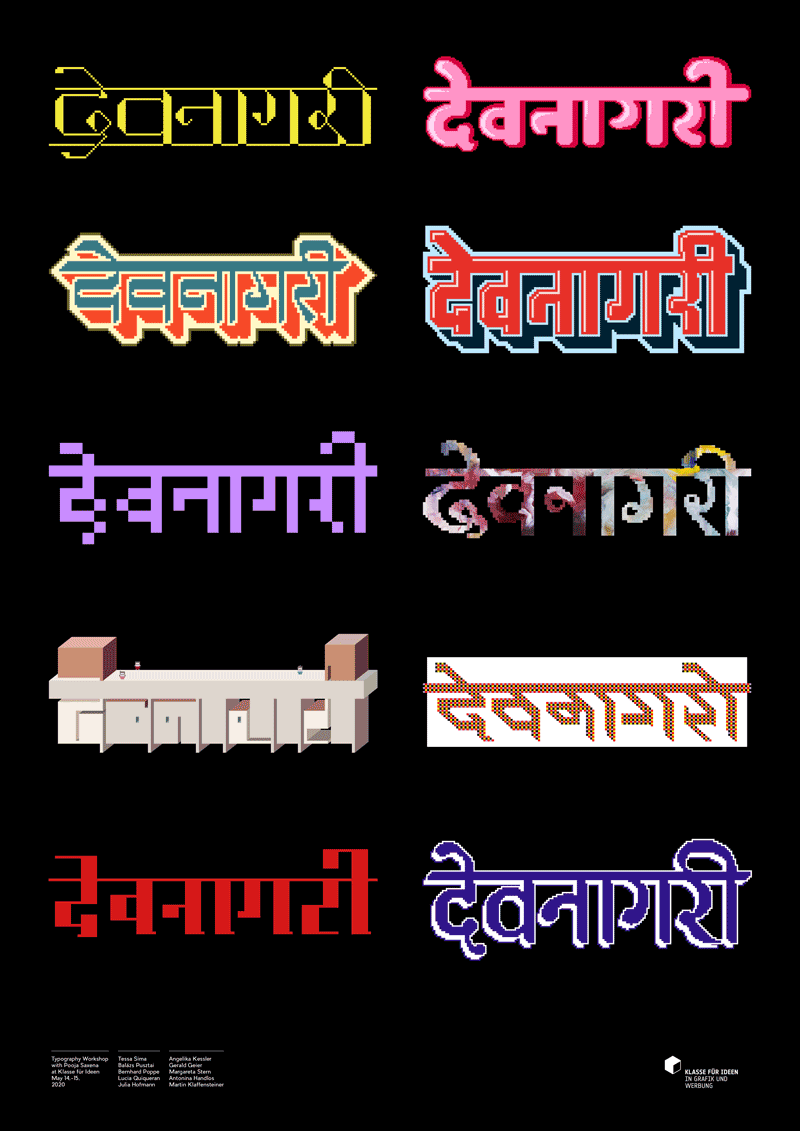
The TypeTogether story: chapter 2020
2020 has been a weird year for everyone. Our main goals this year were to take on the challenge of the variable font format, invest in education, and align our produced pieces with our values and style. Type design was not yet heading toward variable fonts full throttle; it was kind of hovering in the distance and yet still seemed a bit far off. But we could see the major benefits of variable fonts (as well as the challenges) and decided to move forward in a serious way with it. We set our trajectory so the future would intersect with our business goals and our values. And we’re glad we did because we’ve learned so much in the process.
We also wanted to give away as much as we could in the form of education. Our increase in articles tells that story all on its own, and we’ll continue that trajectory in 2021. And our videos on social media and our blog have seen a big bump in quantity and quality as well. Have you seen them all?
New typefaces in 2020
We’ll start with the newest font families and work our way back. Florian Fecher’s Lektorat was the winner of the 2019 Gerard Unger Scholarship and was released this year. Methodical in rationale and irrepressible in function, Lektorat’s 27 styles are the embodiment of editorial expression.
Our megafamily Adelle received a monospaced option just a couple months ago. With 20 styles designed with both the developer and the aesthete in mind, the Adelle Mono family has a true monospaced width (Adelle Mono), a proportional width (Adelle Mono Flex), and a variable font that modulates between the two to boost creativity and coherence.
Our partnership with FounderType, the top Chinese font foundry in the world, had a great release in the form of Adelle Sans Chinese in April. Through this strategic collaboration, we provide the Latin counterparts to PanAsian typefaces and they provide the Chinese to our Latin. It’s a fruitful relationship that we value and will continue to build upon for years to come.
Designed for superlative performance in long form reading on screens, in UI, and apps, Portada is a looped Thai and Latin serif font family and icon set that’s clear and readable in restrictive digital environments. This family has proven its effectiveness — and it’s the font you’re reading right now. Yep, we take our own medicine, eat our own dog food, and generally walk the talk.
Our continued partnership with Leftloft, the top strategy, brand, and design company in Europe, yielded LFT Arnoldo — a flared humanist sans that is intelligent and refined. Its chiselled structure sets dramatic titles worthy of any classic work, and its calm and dependable nature grounds paragraphs in the now.
When we say we set out to master variable fonts, we mean it. Over 80% of our releases this year come in the variable font format, and our variable fonts come with a 15% discount compared to buying the full static family: Literata, Lektorat, Adelle Mono, and LFT Arnoldo.
Custom fonts
We added to our custom work by completing an extensive brand overhaul for the Ötztal valley in the Austrian Alps, including a customised version of our serif and sans Adelle font family.
Literata is a distinct variable font family for digital text that is now in its third version. Originally created as the brand typeface for Google Play Books, it exceeds the strict needs of a comfortable reading experience on any device, screen resolution, or font size. The Literata family has matured into a full-fledged digital publishing toolbox — headline, paragraph, and caption text.
Content
At the end of 2019 we had already decided to increase our website’s educational content. It was a massive, coordinated effort by the entire TypeTogether team: some were coming up with ideas, some were writing, others editing, and still others working on the accompanying images or marketing plan. We also wanted to bring in other scripts besides Latin-based languages, so we asked some good friends to contribute.
Once it became obvious that the pandemic would seemingly lock down the world, we knew we had made the right decision — so we committed to it even more. We put out more in-depth articles than ever, balanced by the breezy and stimulating Instagram quizzes we created, and the bookmarkable repository of online typography videos. This also fulfilled another related need: most of the TypeTogether team travel to lecture, lead workshops, and contribute to significant amounts of in-person education around the world. Due to restricted travel, these outlets in a small way replaced that important commitment.